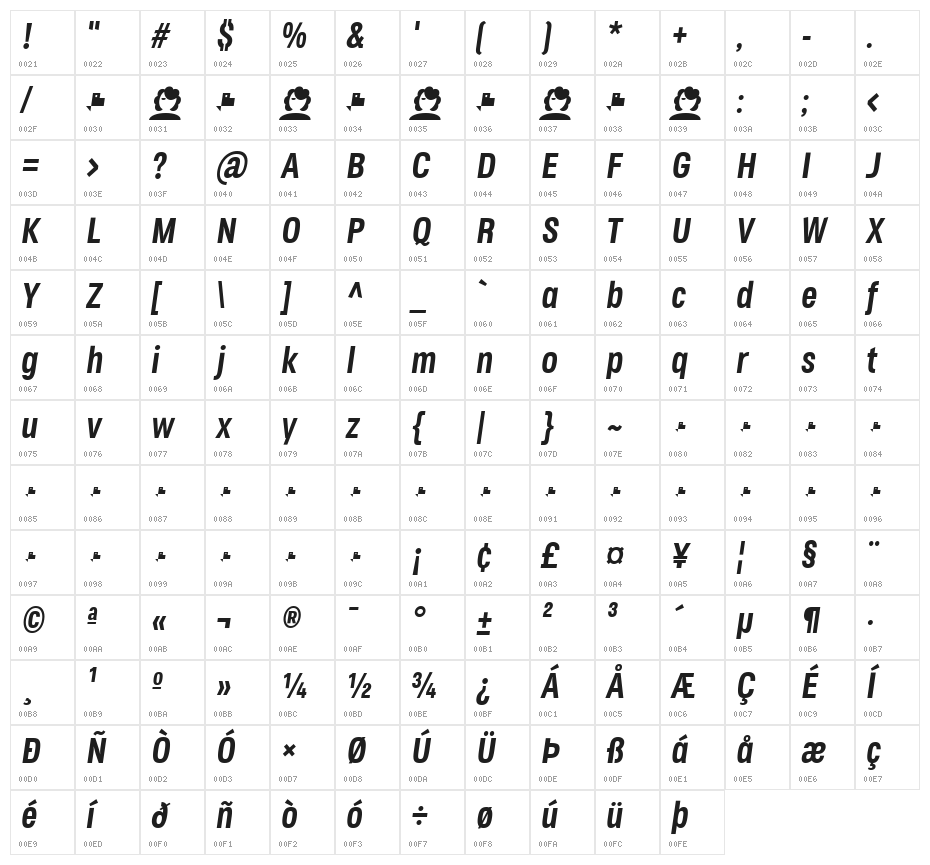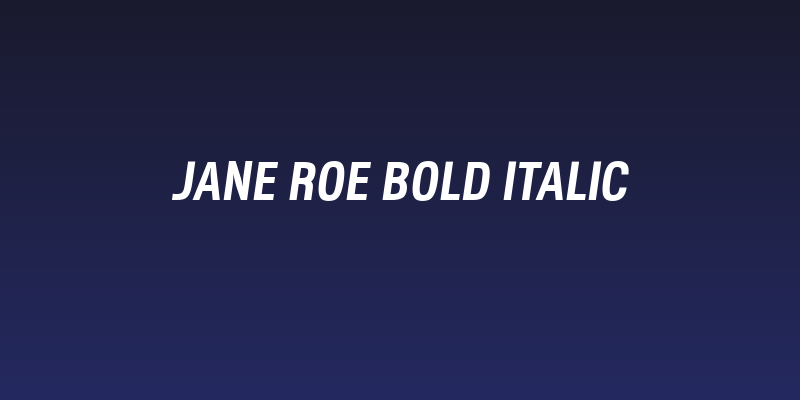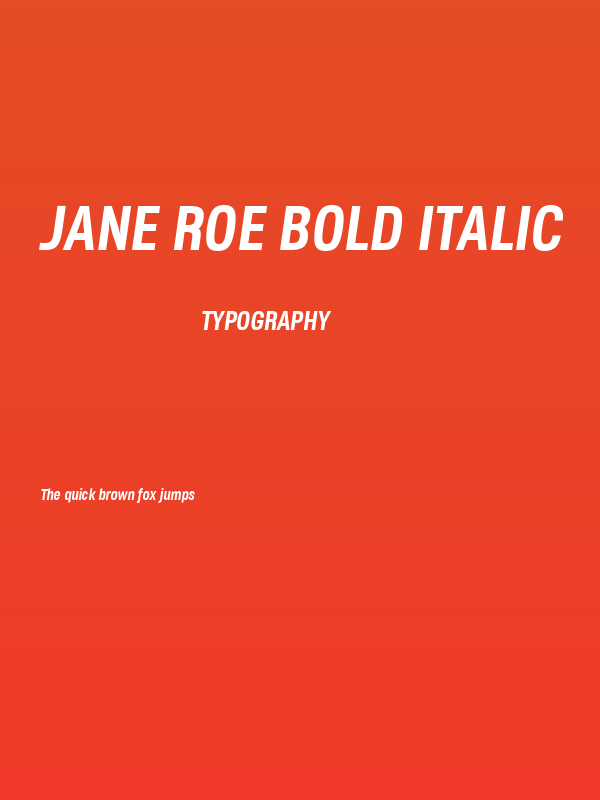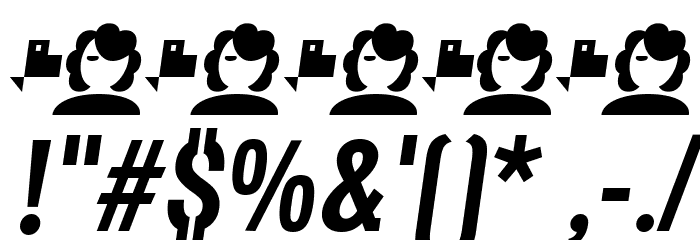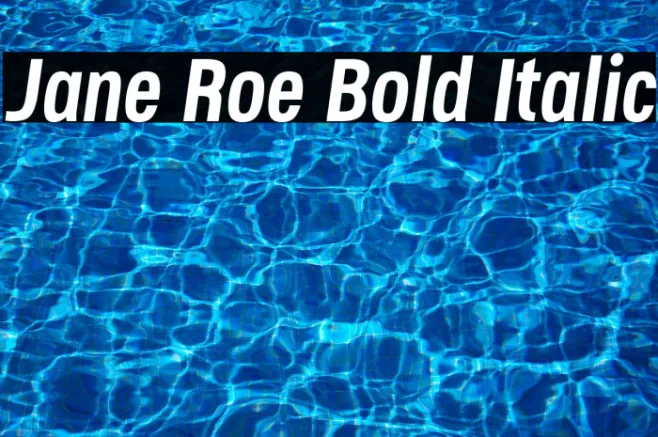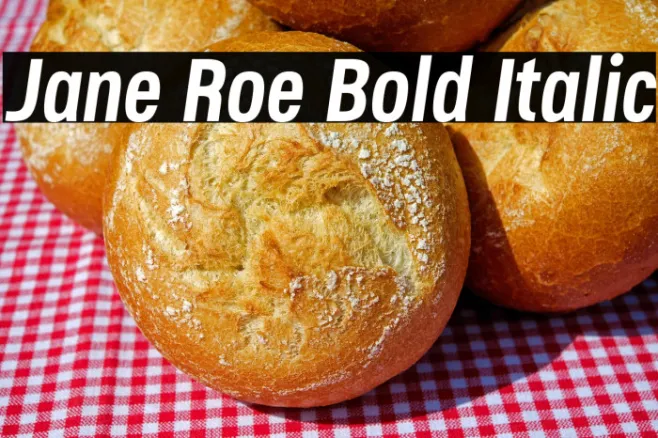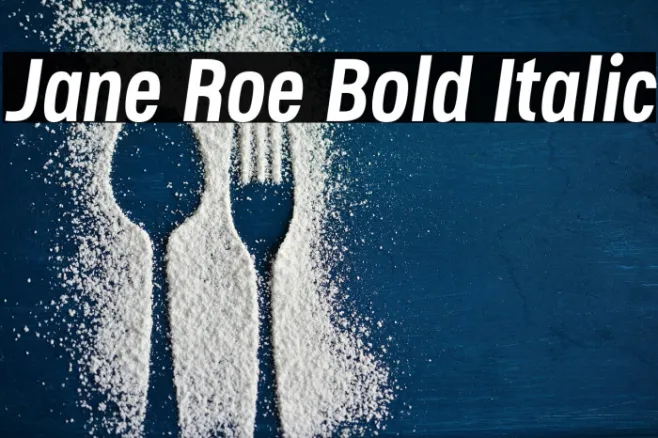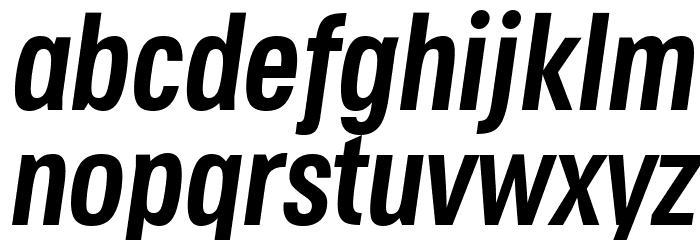
Jane Roe Bold Italic Font
Jane Roe Bold Italic Description
This font features a bold and italicized style, offering a strong and dynamic presence. The uppercase and lowercase letters are designed with a slight slant, enhancing the italic effect. The bold weight provides a robust and impactful look, making it suitable for attention-grabbing text. The characters are evenly spaced, ensuring readability while maintaining a compact appearance. The font includes a full set of uppercase and lowercase letters, numbers, and a variety of special characters, making it versatile for different design needs. Its modern and clean aesthetic makes it ideal for contemporary projects.
| Proposed Projects | Ideal for branding, advertising, headlines, and posters where a strong and modern look is desired. |